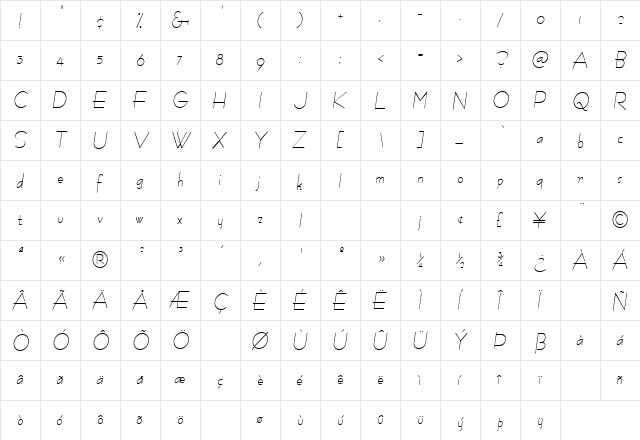
FashionNarrow Oblique Font Preview
Design Context for FashionNarrow Typeface
FashionNarrow takes a measured approach to typography — its balanced proportions and neutral character make it a reliable workhorse for both digital and print work. The slanted form adds forward momentum and visual energy. Its narrow stance lets it pack a punch even in space-constrained designs.
Pro Tip: Try FashionNarrow for annotation and caption copy alongside an upright companion — the contrast in angle creates a dynamic but ordered typographic system.